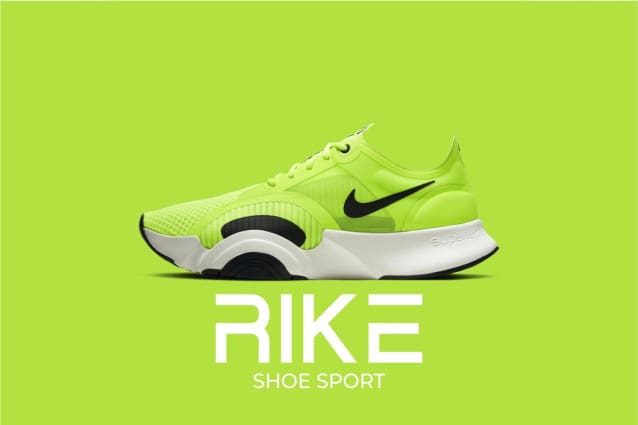
Besport Font
Besport Font is a logo font that is modern at any time and very popular, comes with a modern style to be able to become a favorite by the market. We keep this font looking elegant, classy, ​​modern, stylish, modern, and easy to use. Besport Font is the right choice for logos, brands, company names, fashion, food menus, brand names, branding, brands, quotes, album covers, and other projects. Besportfonts are here to take your designs to the next level.